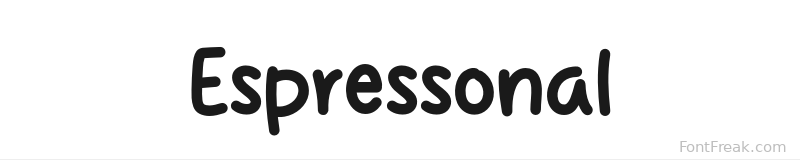
Espressonal
About Espressonal
Espressonal is a captivating display font designed by MJType, released in 2024 under a freeware license. This whimsical typeface falls into the decorative category, characterized by its playful, informal style that effortlessly captures attention. The strokes are thick and rounded, giving the font a friendly and inviting appearance. The overall contrast is moderate, allowing for easy readability while maintaining visual interest. The spacious letterforms contribute to a sense of openness, making Espressonal an ideal choice for various creative projects.
This font is particularly well-suited for wedding invitations, where its charming aesthetic can convey a sense of joy and celebration. It also shines on restaurant menus, adding a touch of personality that can enhance the dining experience. Graphic designers can utilize Espressonal for eye-catching movie posters, as its unique style can set the tone for a fun and engaging film. Additionally, content creators can leverage this font for social media graphics, ensuring their posts stand out in a crowded digital space. The versatility of Espressonal makes it a go-to choice for small business owners looking to establish a memorable brand identity.
What truly sets Espressonal apart is its ability to blend whimsy with professionalism. It captures the essence of fun while ensuring that messages remain clear and engaging. Whether used in print or digital mediums, this font promises to leave a lasting impression, making it an excellent addition to any designer's toolkit.